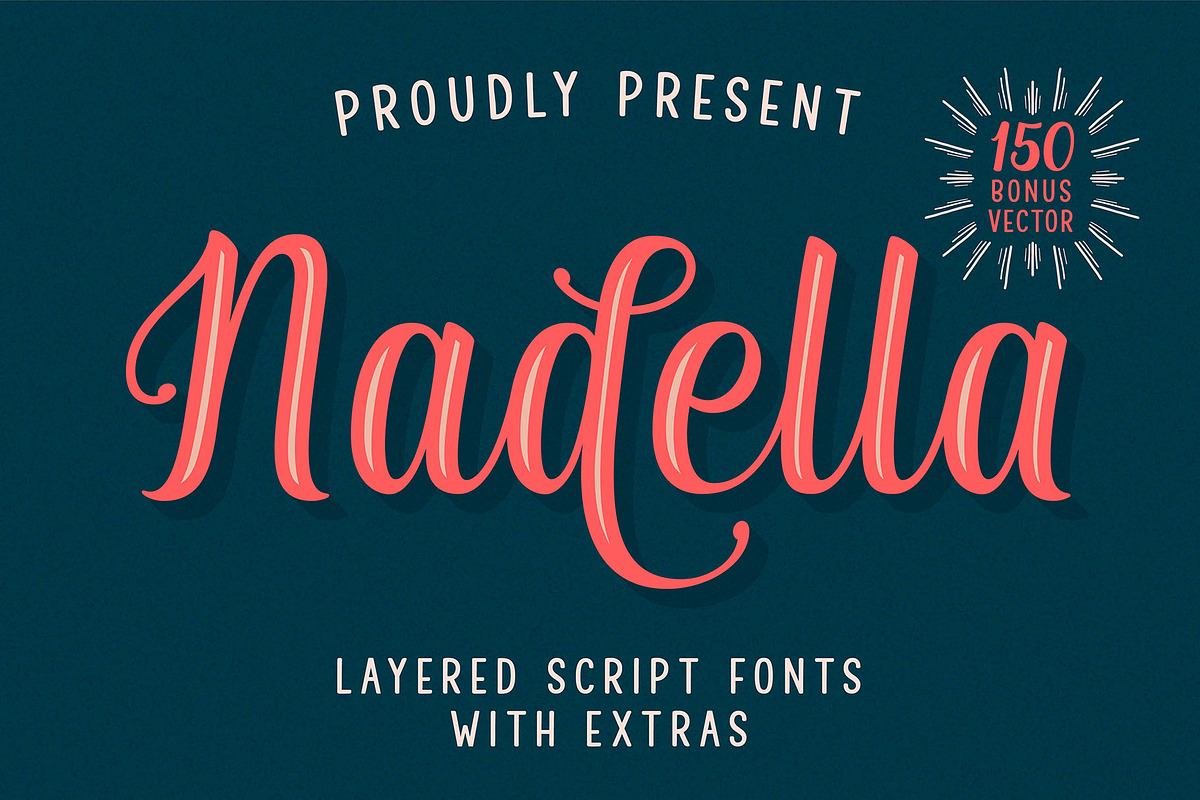
Nadella Layered Script Font Free Download is a stylish and elegant script typeface that comes with multiple layers, allowing for creative depth and texture in your designs. Its fluid and sophisticated letterforms make it perfect for a variety of projects, including logos, invitations, posters, and branding materials.
With its layered structure, you can easily create bold and eye-catching typography by stacking the different layers for an enhanced, 3D effect. Whether you’re designing a modern brand or a vintage-inspired project, Nadella brings elegance and versatility to your typography.
Add dimension and elegance to your designs with Nadella Layered Script Font Free Download, and create striking, layered typography that stands out with personality and flair. Perfect for designers looking for a creative, sophisticated script font.